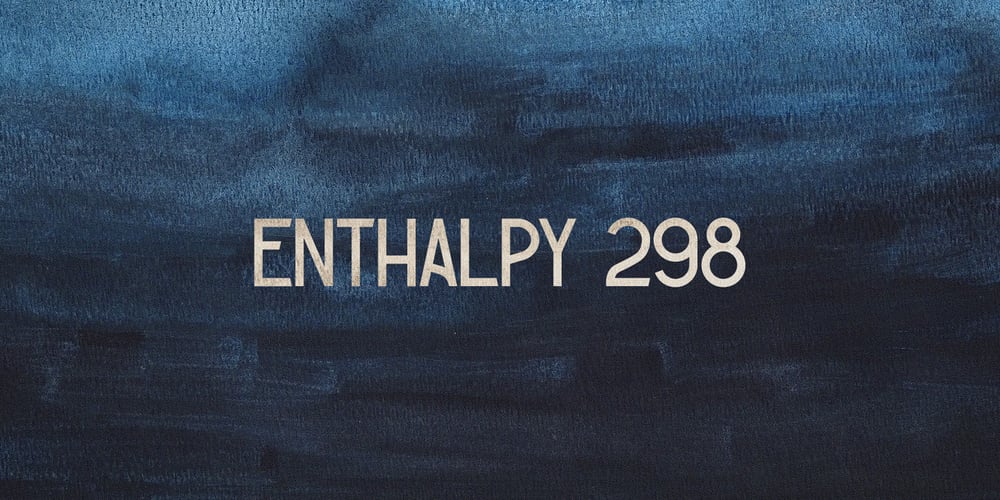
Enthalpy 298
Enthalpy 298 font
Enthalpy 298 Font Family was designed by Grigorij Gushchin and published by Grigorij Gushchin. Enthalpy 298 contains 1 styles and family package options. Enthalpy 298 – the thermal effect of a chemical reaction measured at a standard temperature (298 K). This retro display font will give your projects a unique atmosphere of american posters from the 60s.